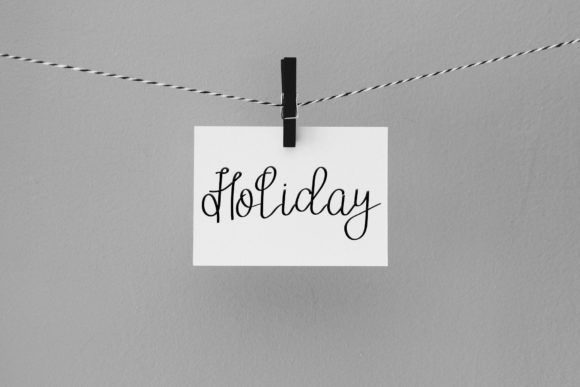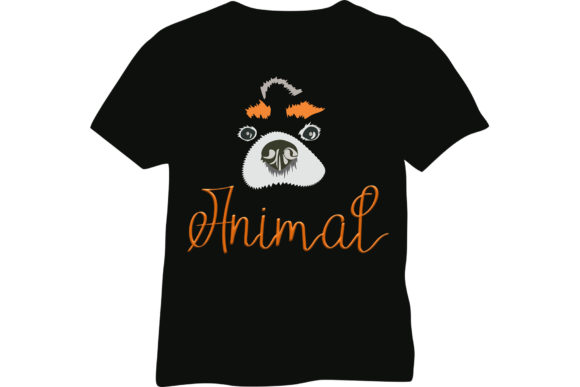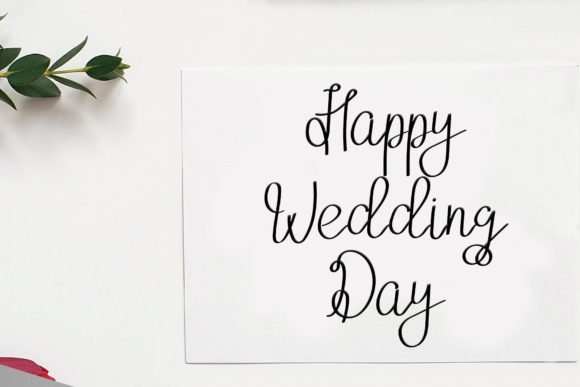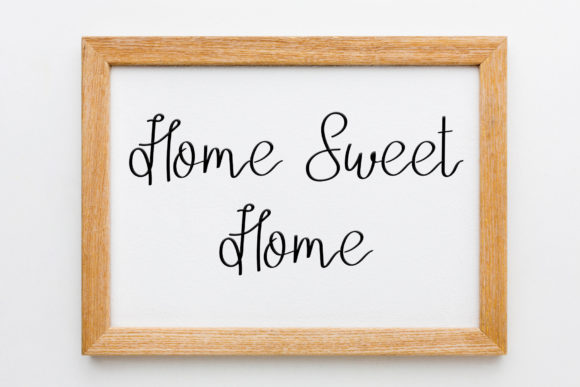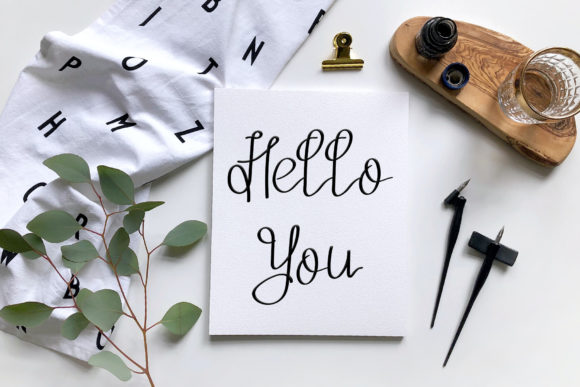
Introducing Farmhouse Font: Elevate Your Designs with Elegant Script
Are you a designer or crafter looking for a font that exudes elegance and sophistication? Look no further than Farmhouse Font, a stunning script font that brings a touch of classic calligraphy to your modern projects. With its impeccable form and balanced design, Farmhouse Font is the perfect choice for those seeking a refined and versatile typeface.
The Inspiration Behind Farmhouse Font
Farmhouse Font draws inspiration from timeless classic calligraphy, evoking the nostalgia of traditional handwritten scripts. However, this font is far from old-fashioned. Its contemporary atmosphere and carefully crafted design make it an ideal choice for modern designs, from wedding stationery to branding and packaging.
So, what sets Farmhouse Font apart from other script fonts? Here are a few key characteristics that make it stand out:
- Balanced and varied: Farmhouse Font strikes the perfect balance between thin and thick strokes, creating a sense of harmony and visual interest.
- Not too thin, not too thick: The font’s moderate weight ensures that it’s legible and versatile, suitable for a wide range of design applications.
- Elegant and refined: Farmhouse Font boasts an air of sophistication, making it perfect for high-end designs, such as luxury branding, wedding invitations, and upscale packaging.
Use Cases for Farmhouse Font
Farmhouse Font is an incredibly versatile typeface, suitable for a variety of design projects. Here are some use cases to get you started:
- Wedding stationery: Create beautiful wedding invitations, save-the-dates, and thank-you cards with Farmhouse Font.
- Luxury branding: Elevate your brand with a sophisticated and elegant typeface that exudes refinement and poise.
- Packaging design: Add a touch of classic elegance to your product packaging with Farmhouse Font.
- Signage and display: Use Farmhouse Font for eye-catching signage, display ads, and promotional materials.
Farmhouse Font offers numerous benefits for designers and crafters, including:
- Easy to read: The font’s clear and balanced design ensures that your text is easy to read, even at smaller sizes.
- Highly versatile: Farmhouse Font can be used for a wide range of design projects, from digital to print.
- Time-saving: With Farmhouse Font, you can create stunning designs quickly and efficiently, without sacrificing quality.
To get the most out of Farmhouse Font, here are a few tips to keep in mind:
- Pair with complementary fonts: Combine Farmhouse Font with sans-serif fonts for a striking contrast.
- Experiment with colors: Try pairing Farmhouse Font with rich, bold colors to add depth and visual interest.
- Pay attention to spacing: Ensure that your text has sufficient spacing to maintain readability and elegance.
Farmhouse Font is an exceptional script font that brings a touch of classic elegance to your modern designs. With its impeccable form, balanced design, and versatile nature, it’s the perfect choice for designers and crafters seeking a refined and sophisticated typeface. Whether you’re working on wedding stationery, luxury branding, or packaging design, Farmhouse Font is sure to elevate your projects to new heights.